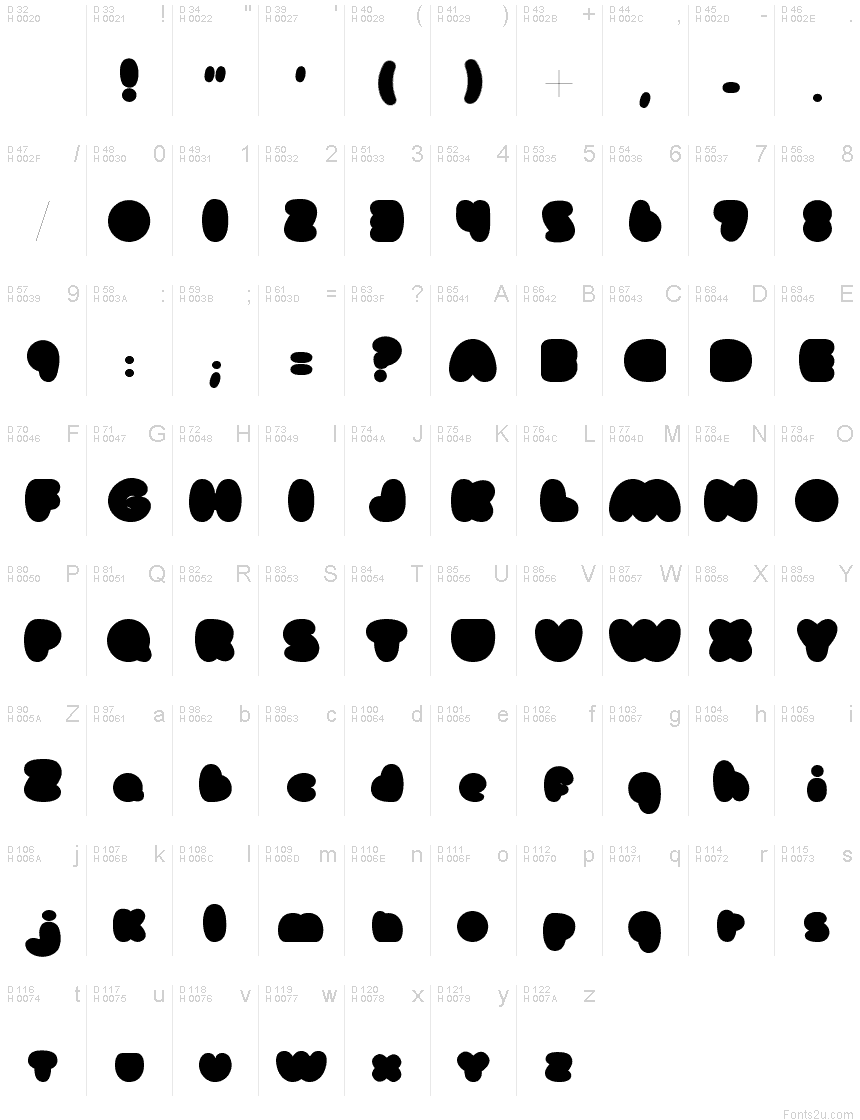
Accapo by Jonathan Calugi of Lovers Town is a free cartoon display font built from swollen, softly rounded letterforms. The dense shapes nearly merge at their edges, with uneven proportions and small openings that make the lettering resemble hand-cut blobs rather than conventional type.
It can turn a logo into an illustrated emblem. That gummy silhouette suits children's packaging, music posters, and playful merchandise, especially when the lettering joins simple characters or organic shapes as part of the artwork.